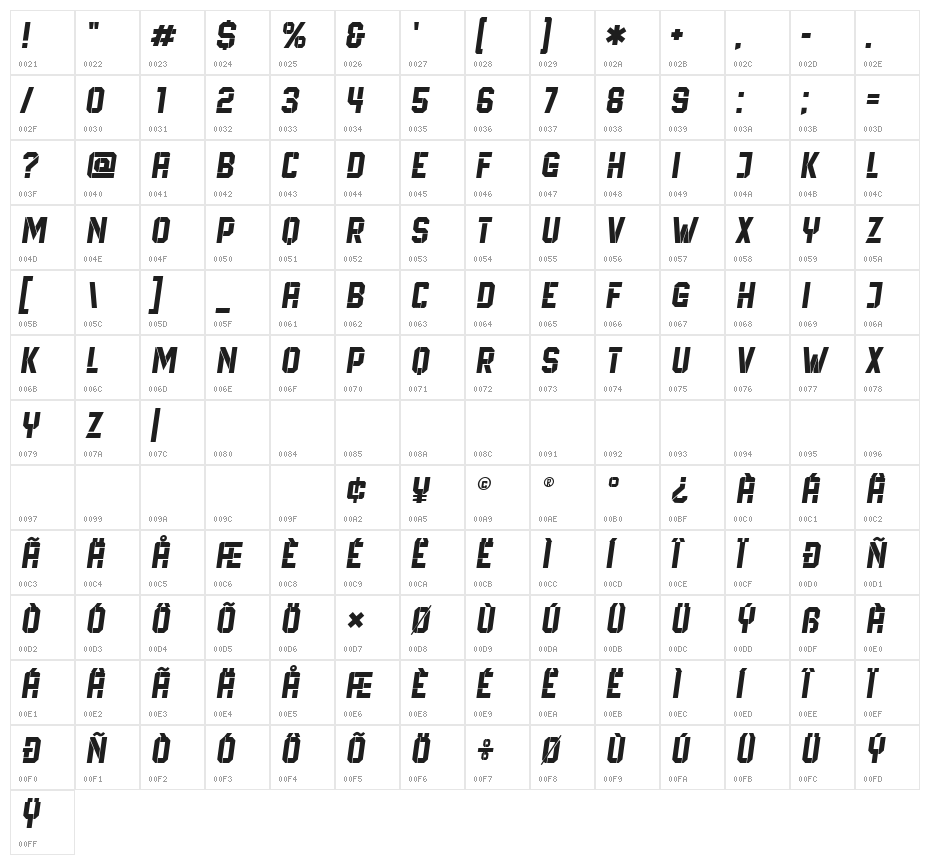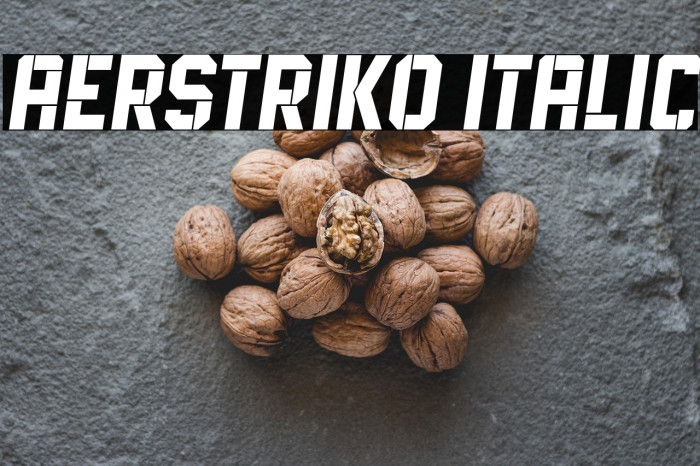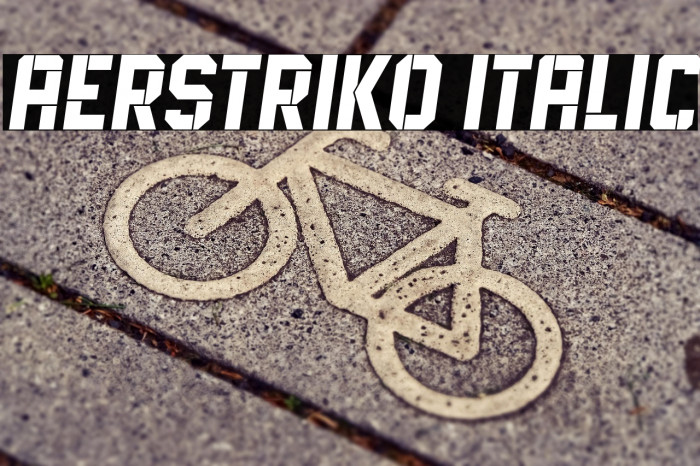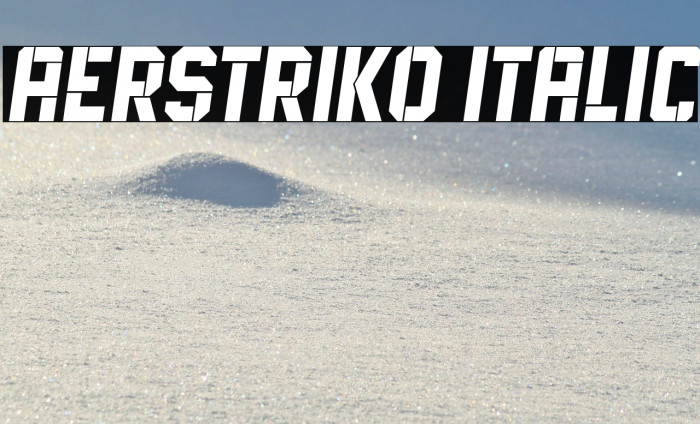
Aerstriko Italic Font
Aerstriko Italic Description
This font features a bold, angular design with a distinct italic slant, giving it a dynamic and futuristic appearance. The characters are constructed with sharp, geometric shapes, creating a sense of movement and energy. The uppercase and lowercase letters maintain a consistent style, with each character having a unique, edgy form. The numbers and special characters follow the same design principles, ensuring a cohesive look across all elements. The font's strong presence makes it suitable for attention-grabbing applications.
| Proposed Projects | Ideal for use in sci-fi themed projects, video game titles, posters, and branding that requires a modern, edgy look. |